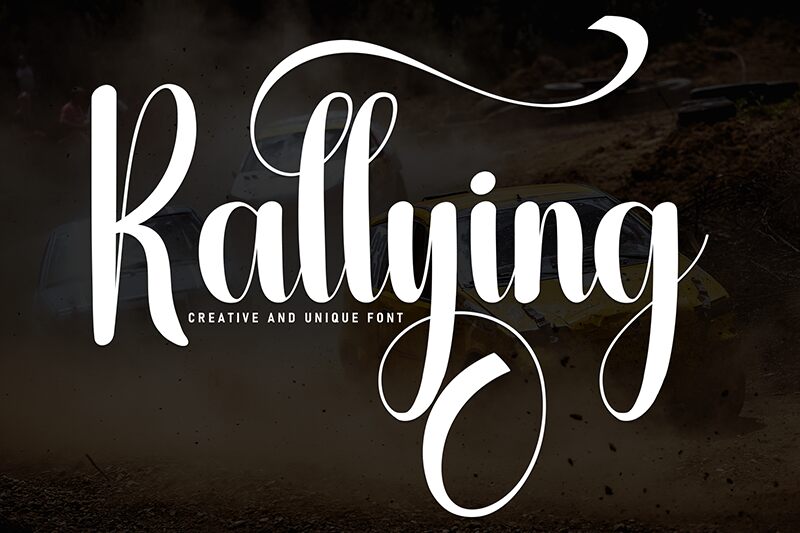
Rallying
Rallying font is a free calligraphy font by Scratchones with intense expressive body shapes and condensed width. Its elegant sophisticated expressions are especially suitable for those designers going after luxury and class in their works. Beautifully flowing letter connections and harmonious strokes make this font the perfect calligraphy tool.